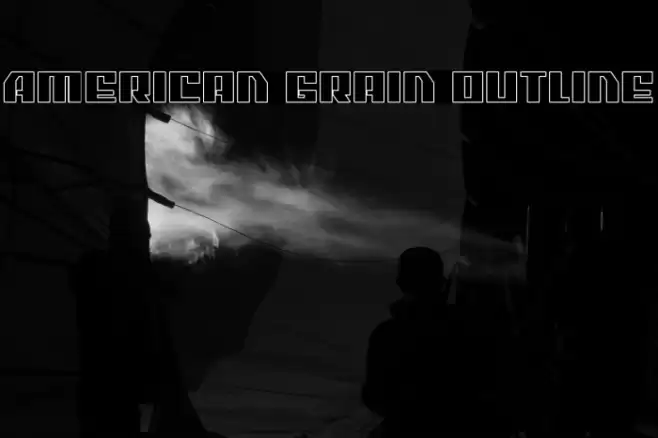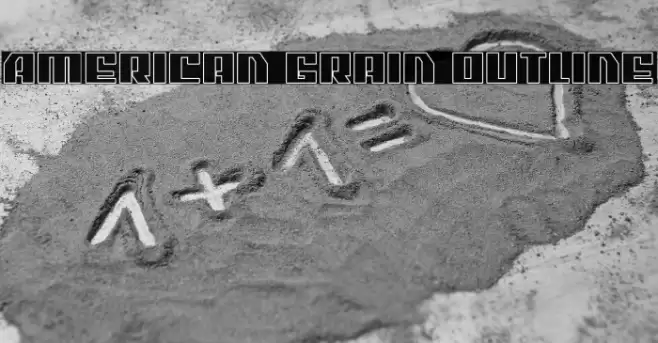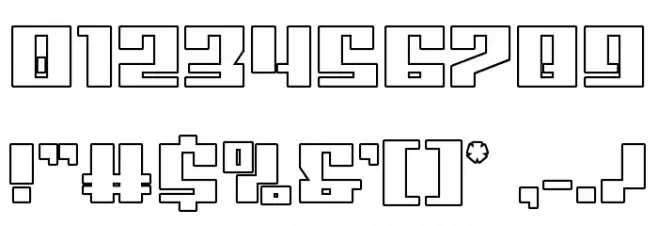
American Grain Outline Font
American Grain Outline Description
This font features a bold, geometric outline style that emphasizes a modern and industrial aesthetic. The characters are constructed with straight lines and sharp angles, creating a sense of strength and precision. The uppercase and lowercase letters maintain a consistent height, enhancing uniformity. The numerals and special characters follow the same structural design, ensuring a cohesive look across all glyphs. The outline effect adds a layer of depth, making the font suitable for standout designs. Its unique style is ideal for projects that require a bold statement.
A bold, geometric outline font with a modern industrial feel from Uncategorized fonts.
- Proposed Projects: Ideal for branding, posters, signage, and any design requiring a strong, modern look.